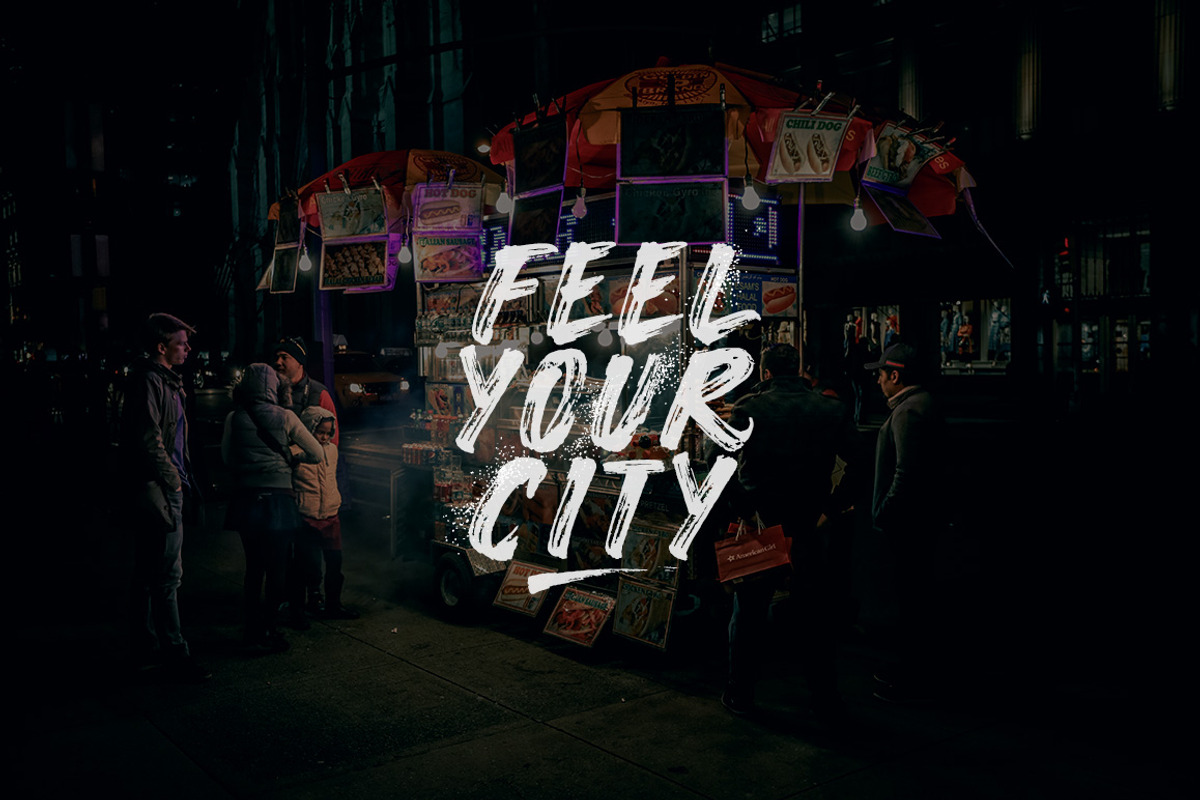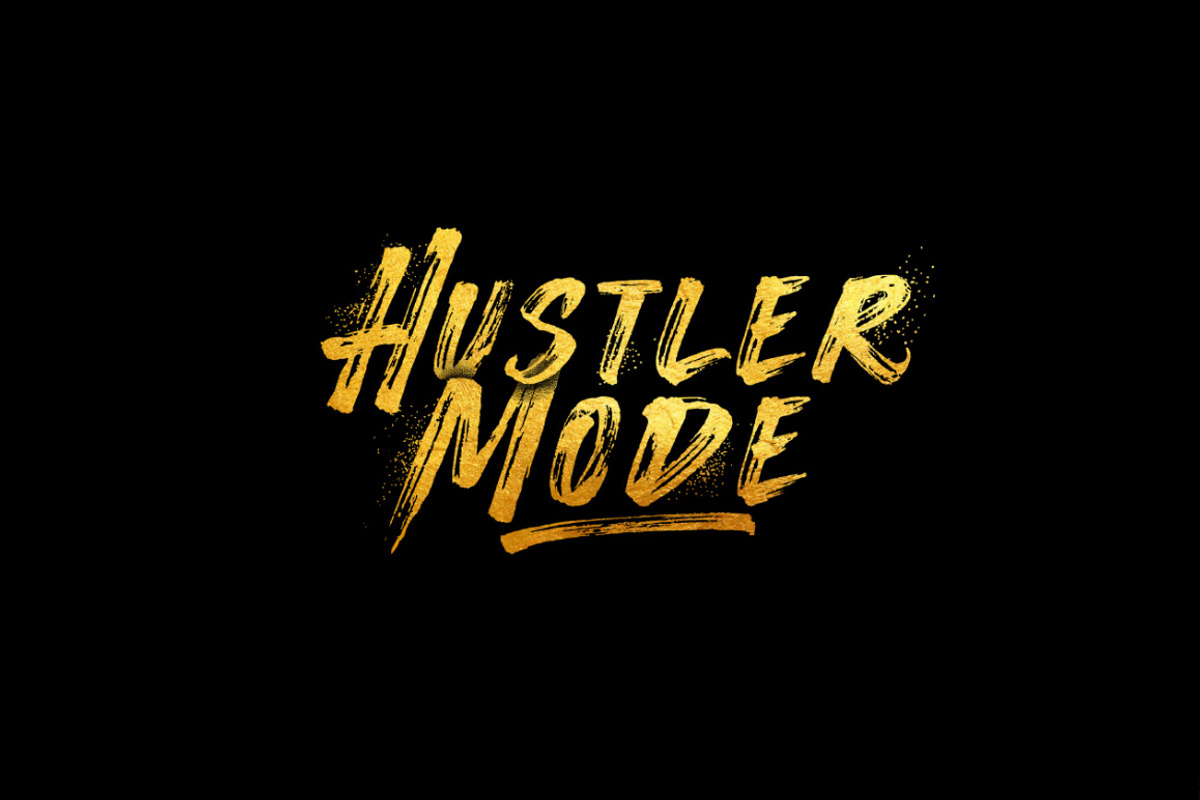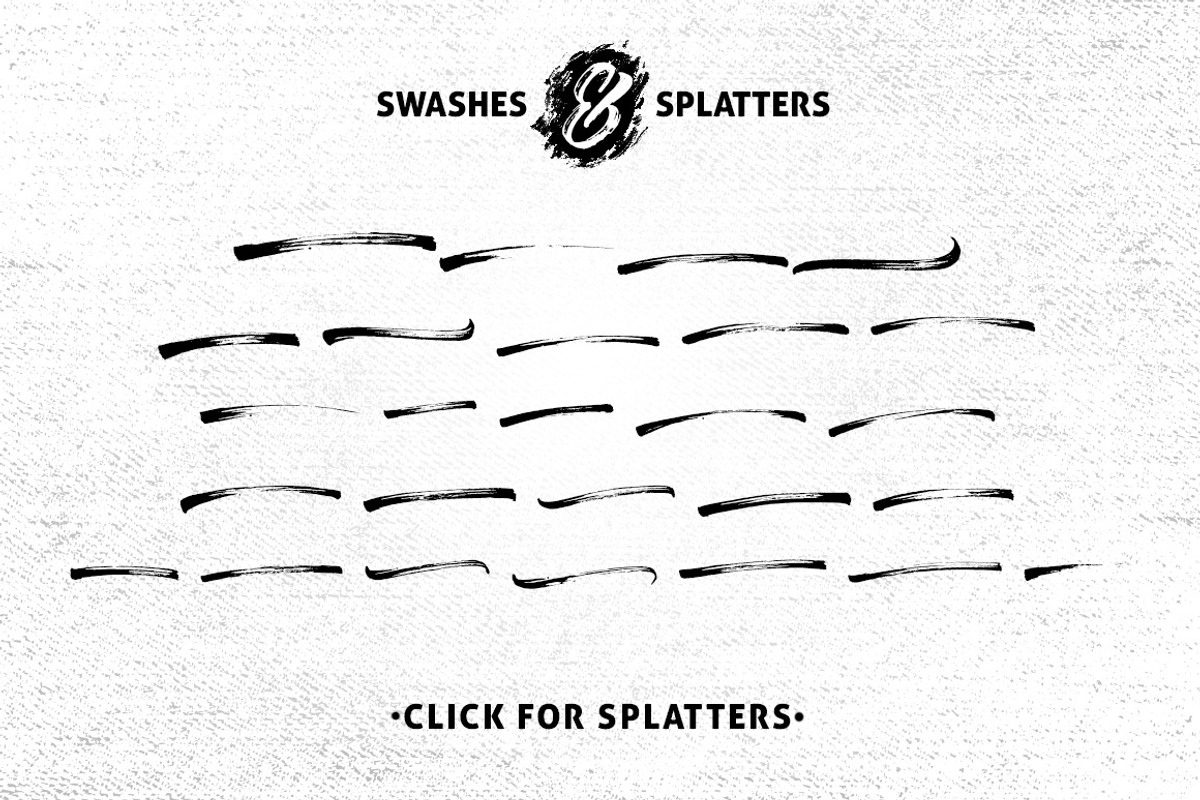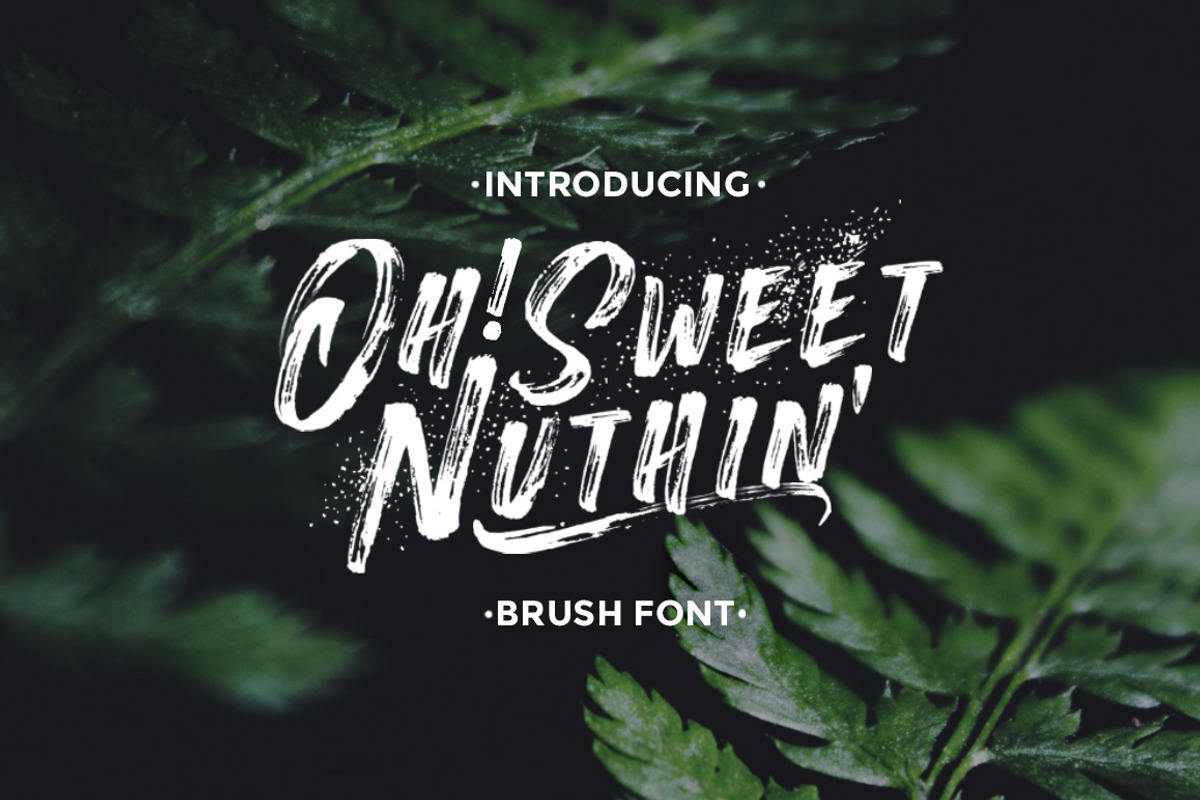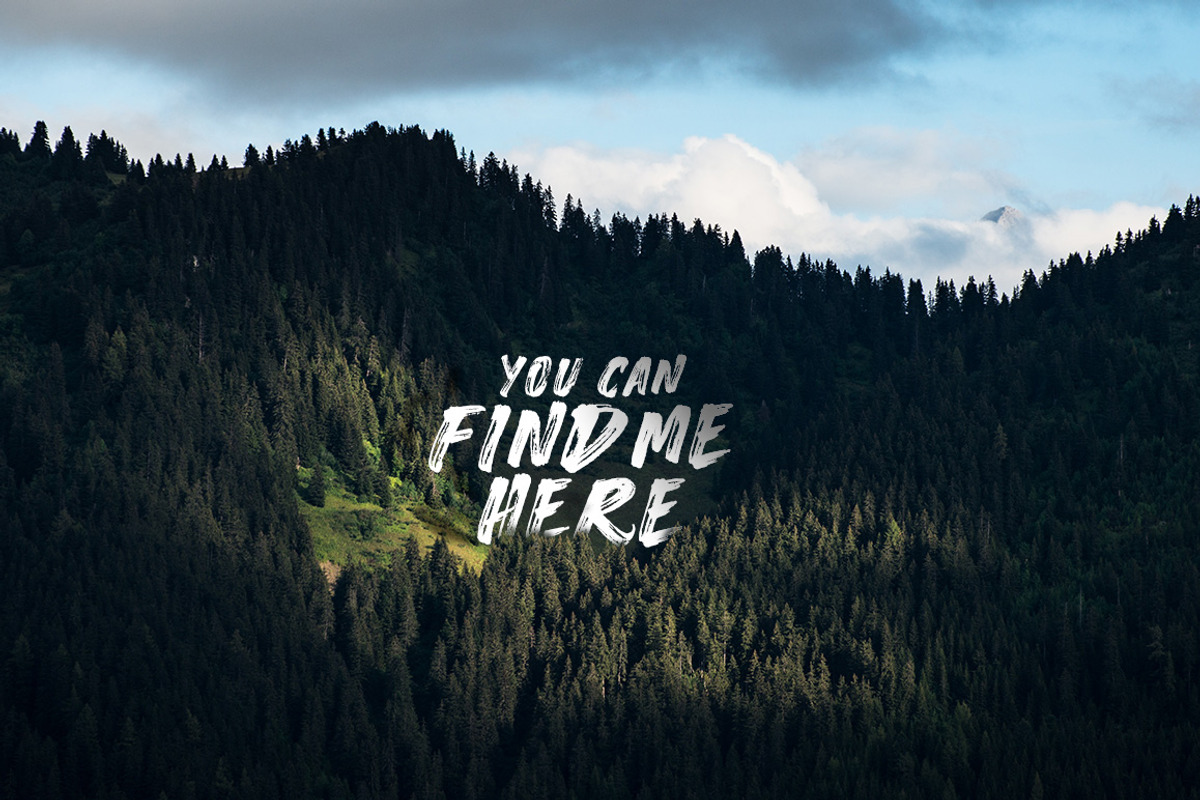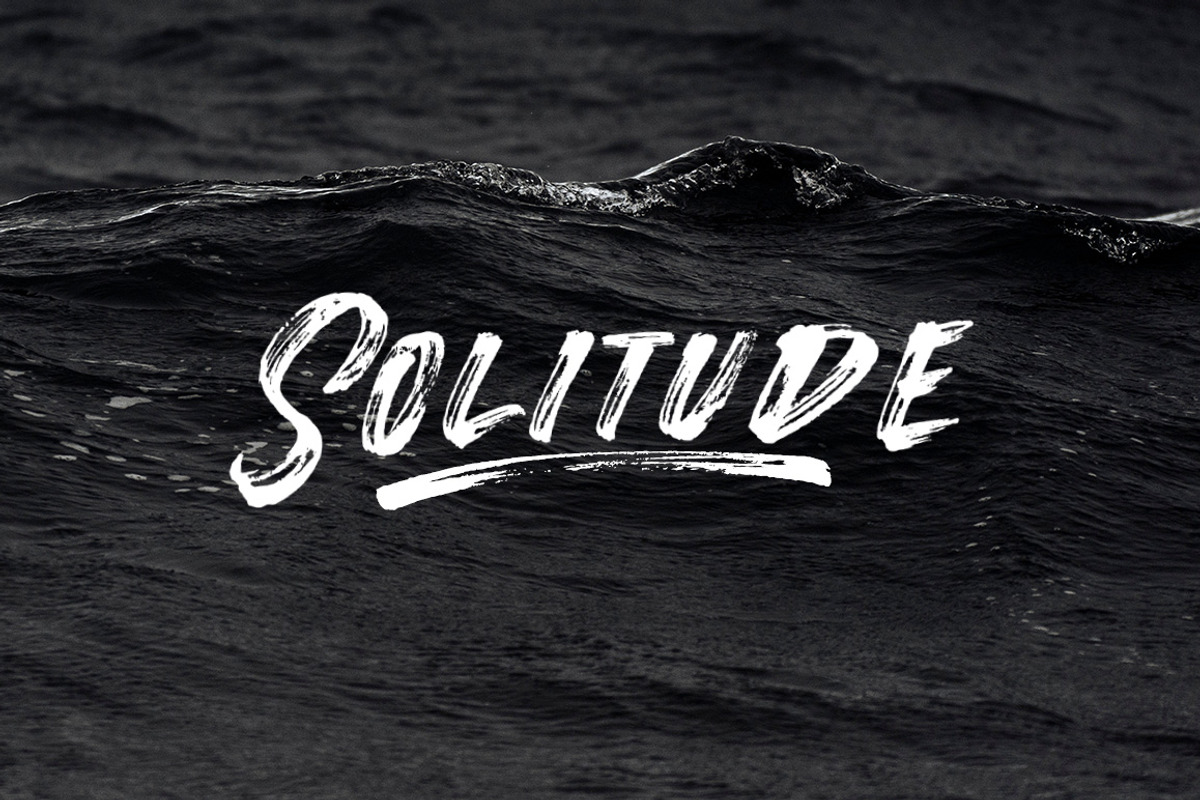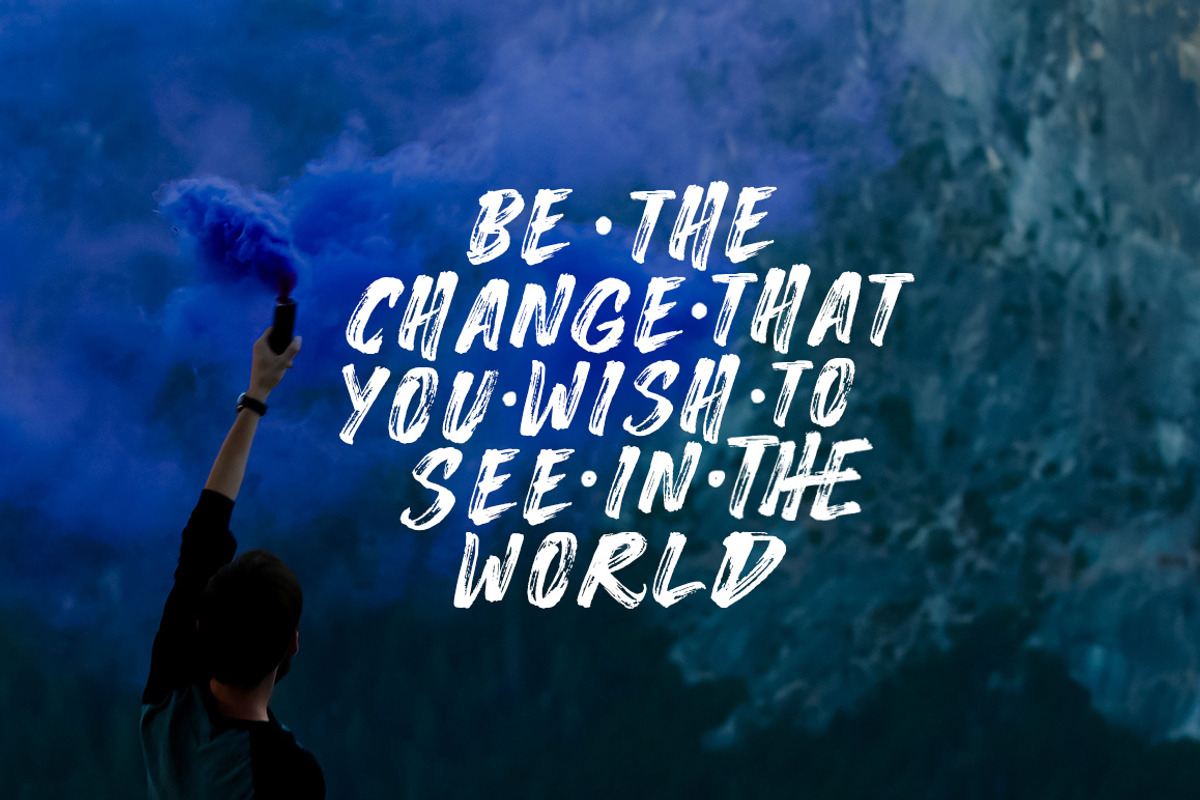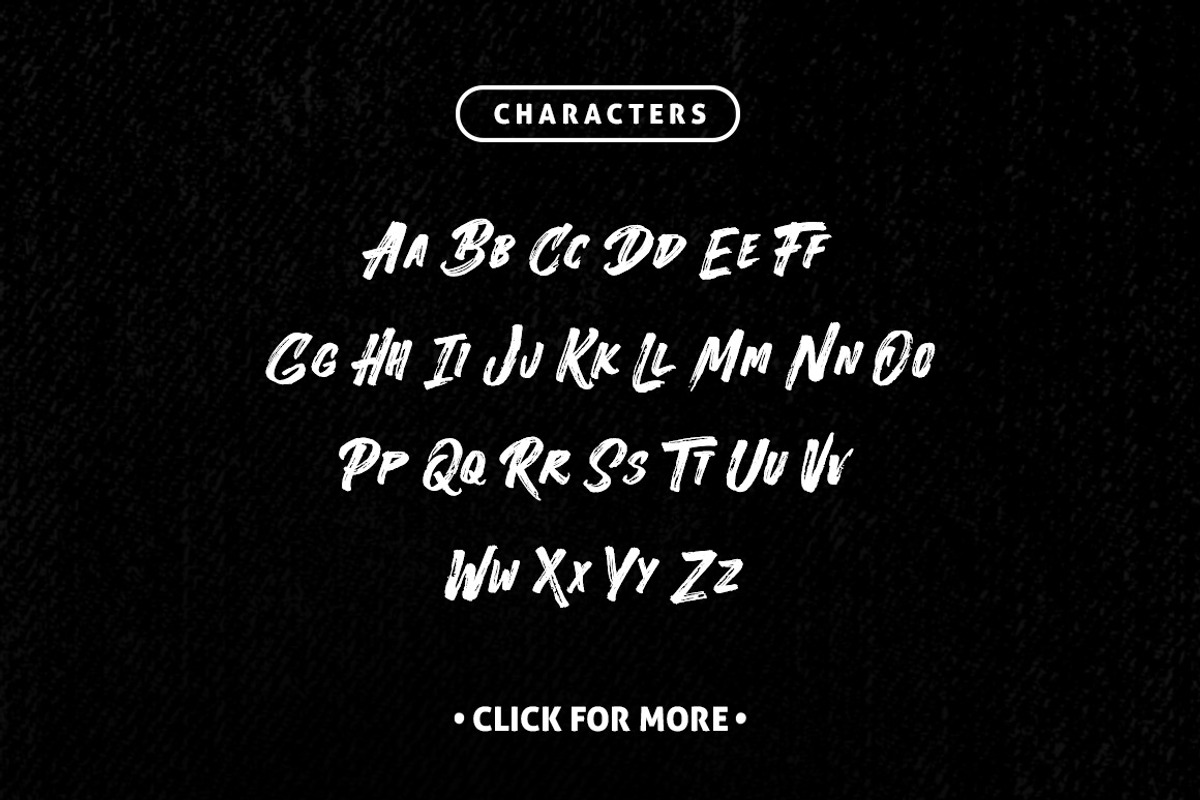
Oh!SweetNuthin' - Handcrafted Font
Oh!SweetNuthin' - Handcrafted Font by Davihero is a font selected for branding, posters, packaging, typography.
- Lowercase for the swashes and Uppercase for the splatters.
Why Oh!SweetNuthin' - Handcrafted Font is worth a look
Oh!SweetNuthin' - Handcrafted Font by Davihero fits naturally into Branding, posters, packaging, typography.